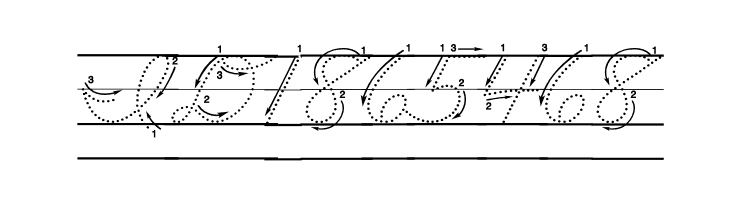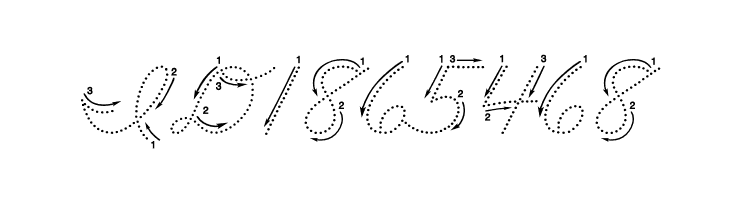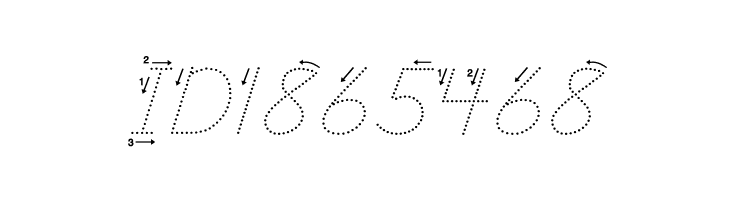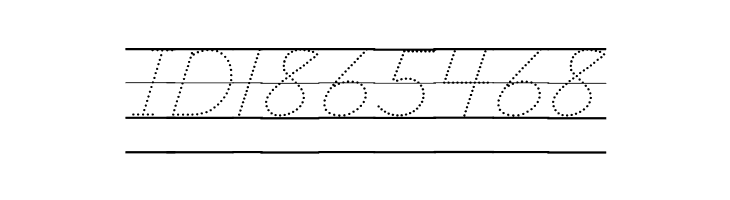
Cursive educational font with dotted lines and directional guides.
A dotted cursive font with arrows for instructional handwriting practice.
An educational font with dotted lines and directional guides for learning letter formation.
A dotted line font ideal for handwriting practice and educational materials.